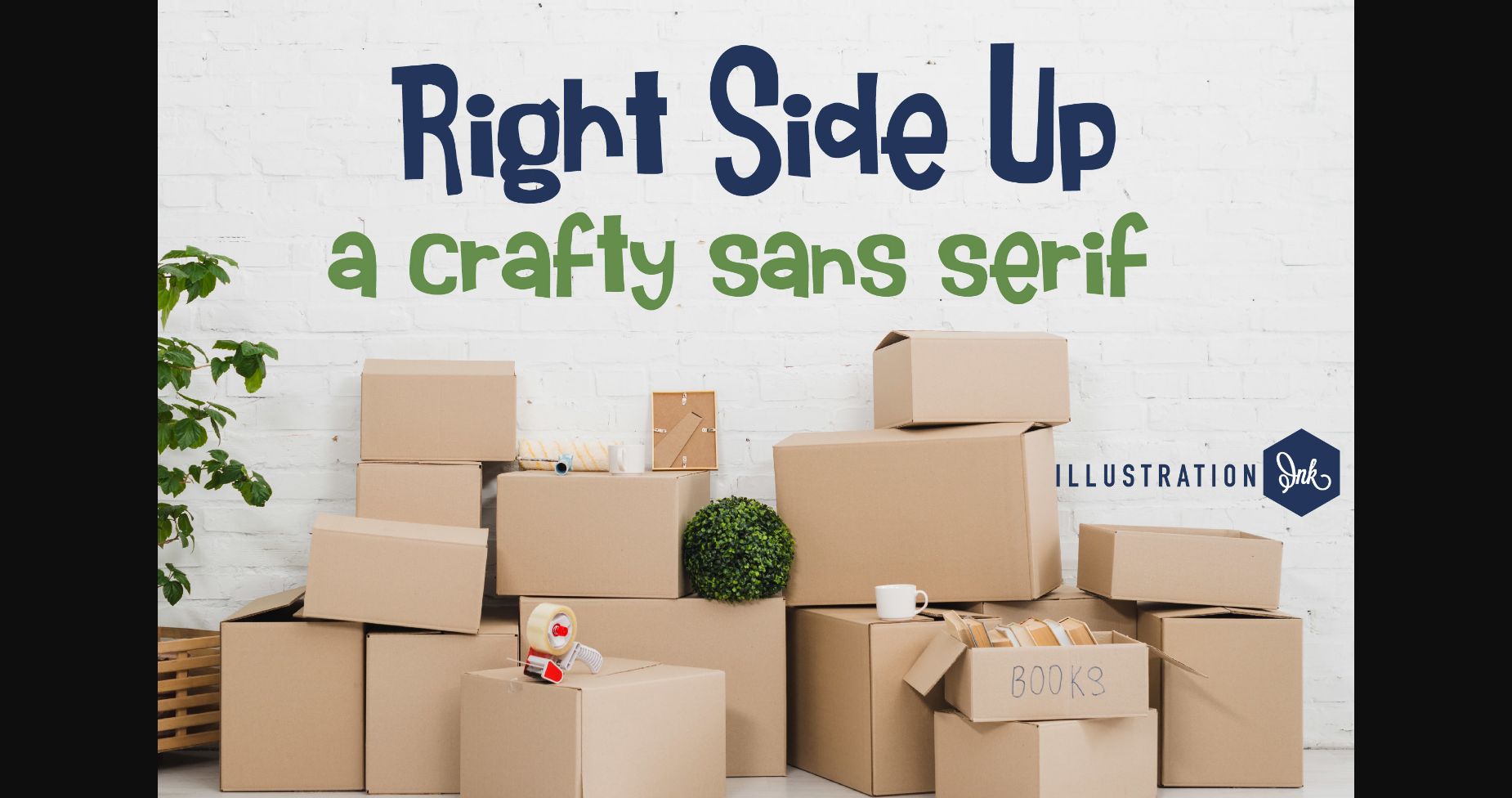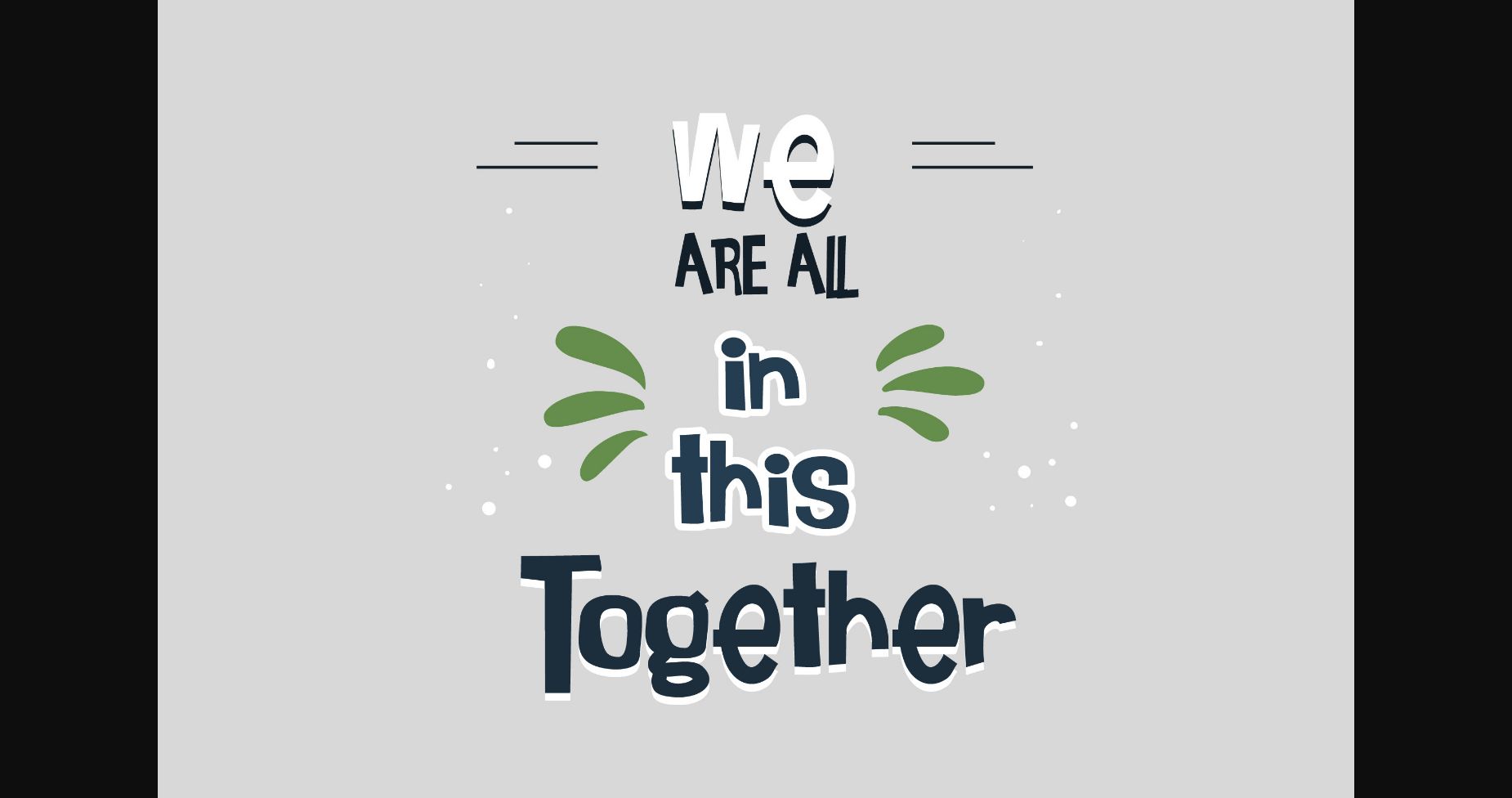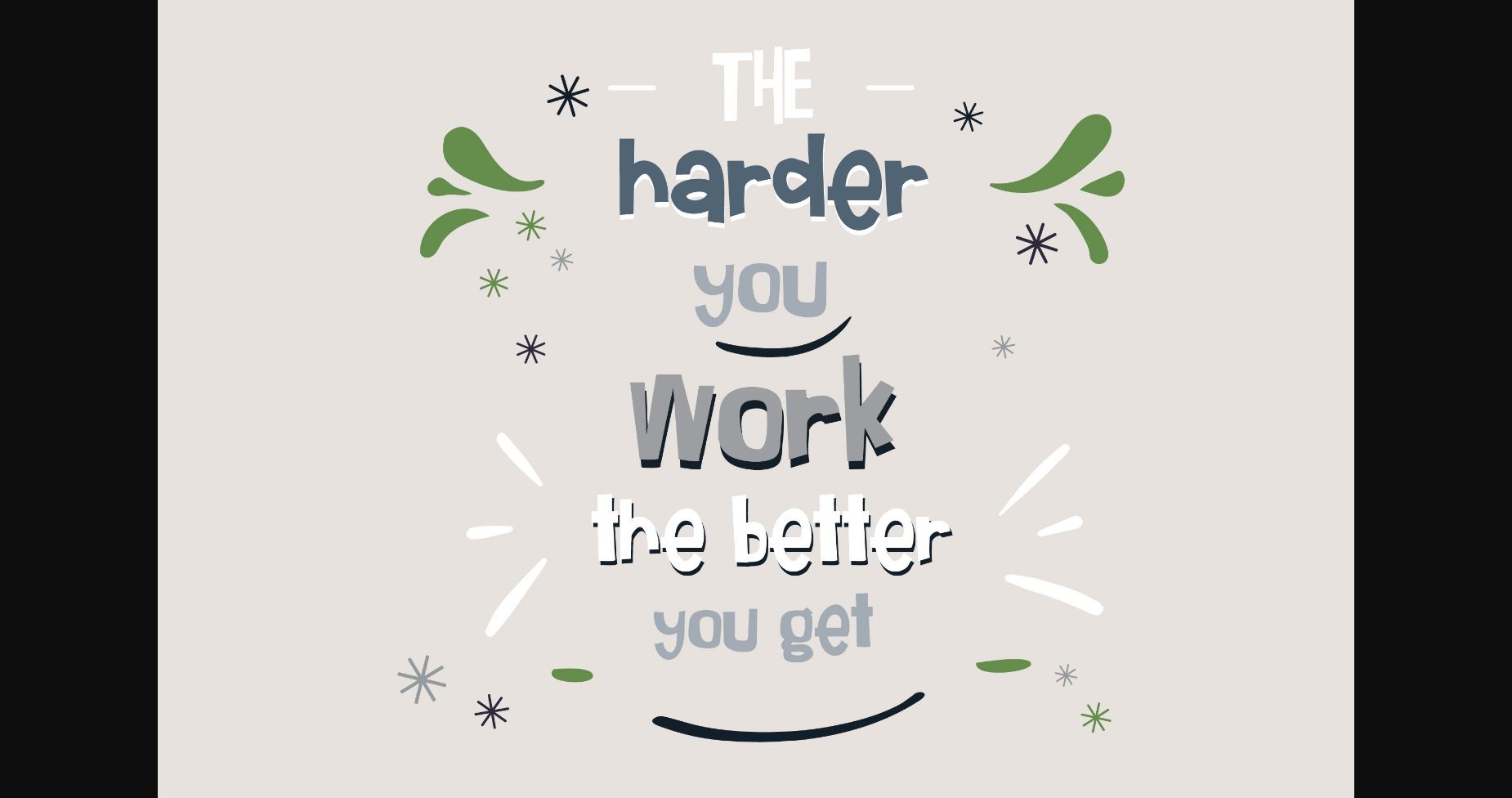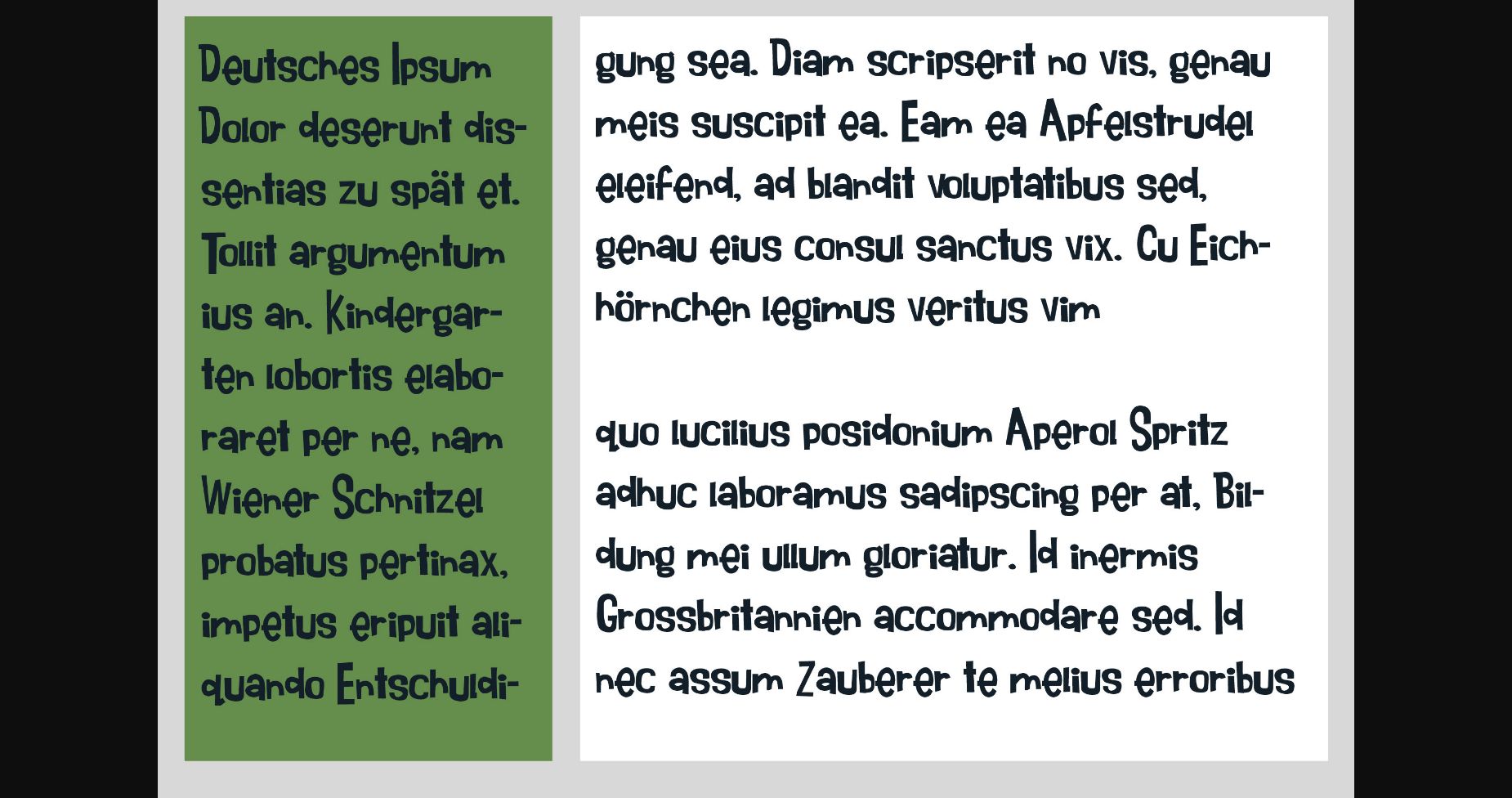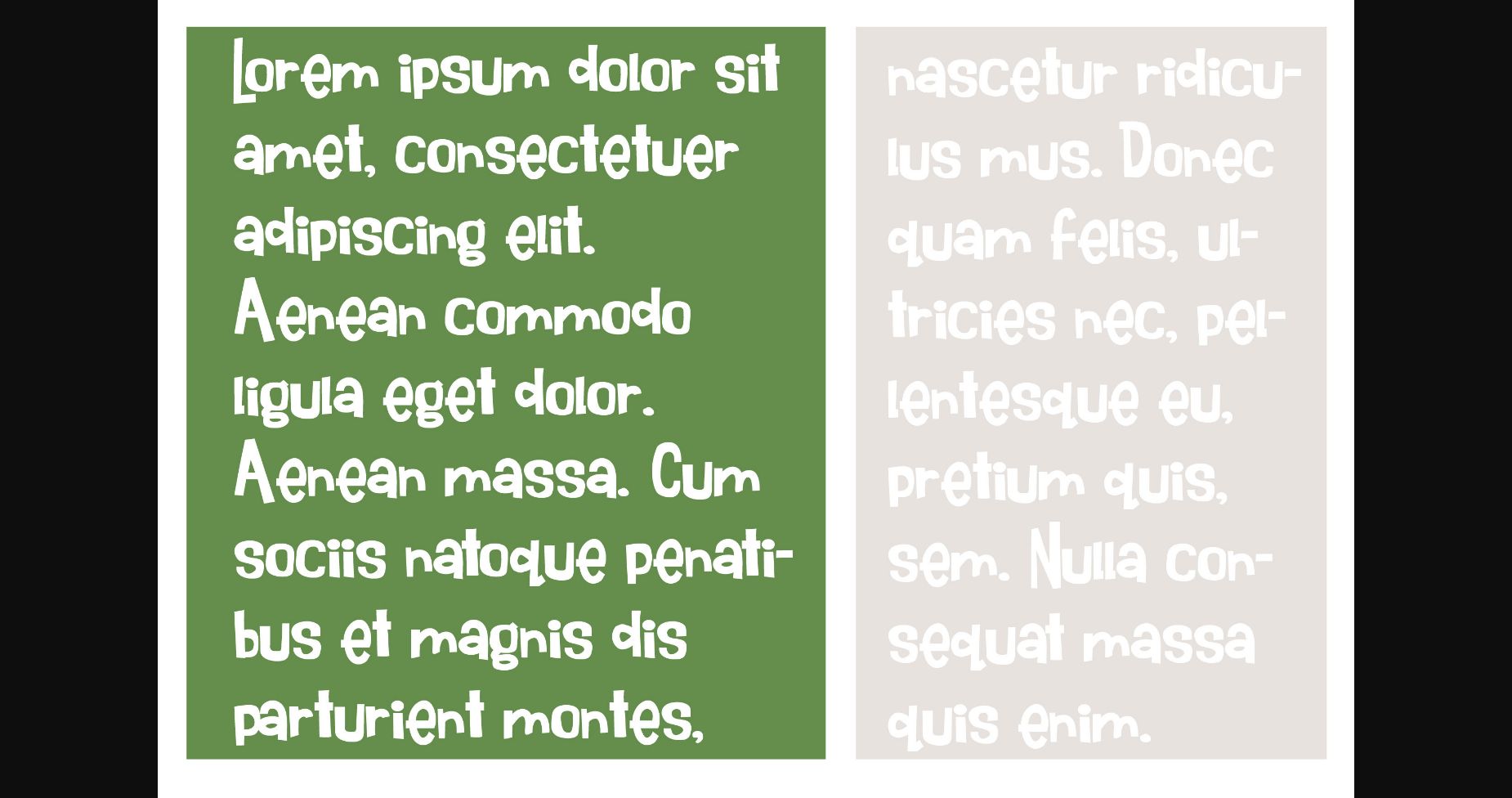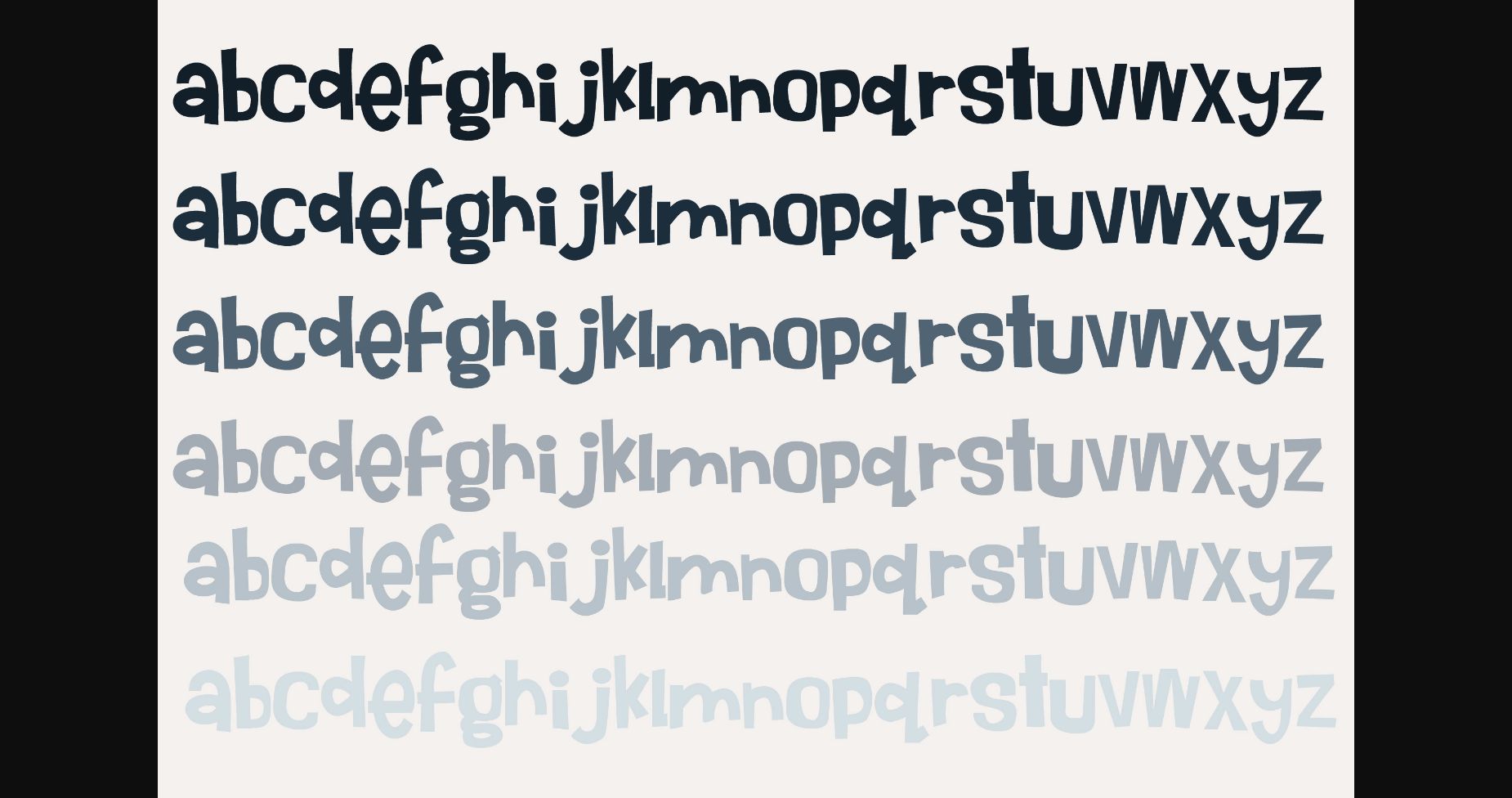
Right Side Up Font
About Right Side Up Font
Right Side Up is a modern sans-serif font featuring unbalanced letters with sharp angles and thin lines. Its unique shape gives a contemporary feel, while its smooth curves create an attractive and eye-catching look. Perfect for headlines, logos, and other design projects.